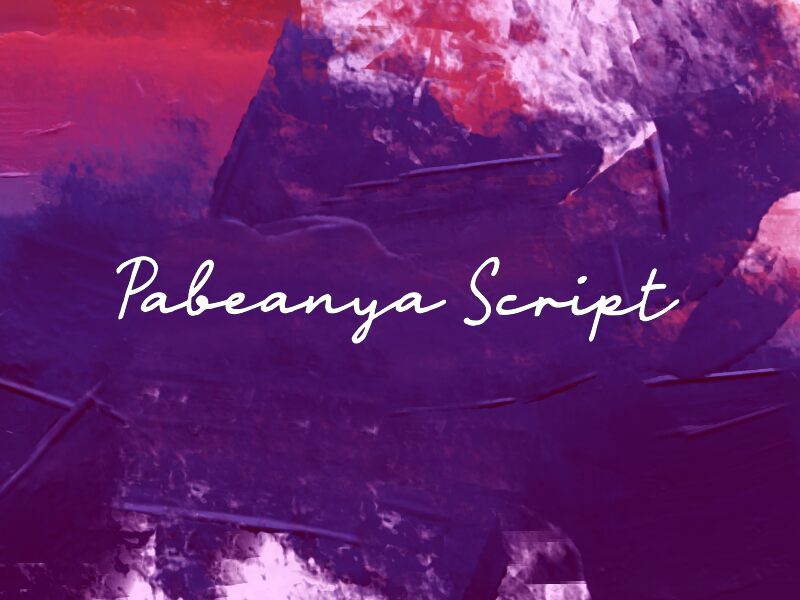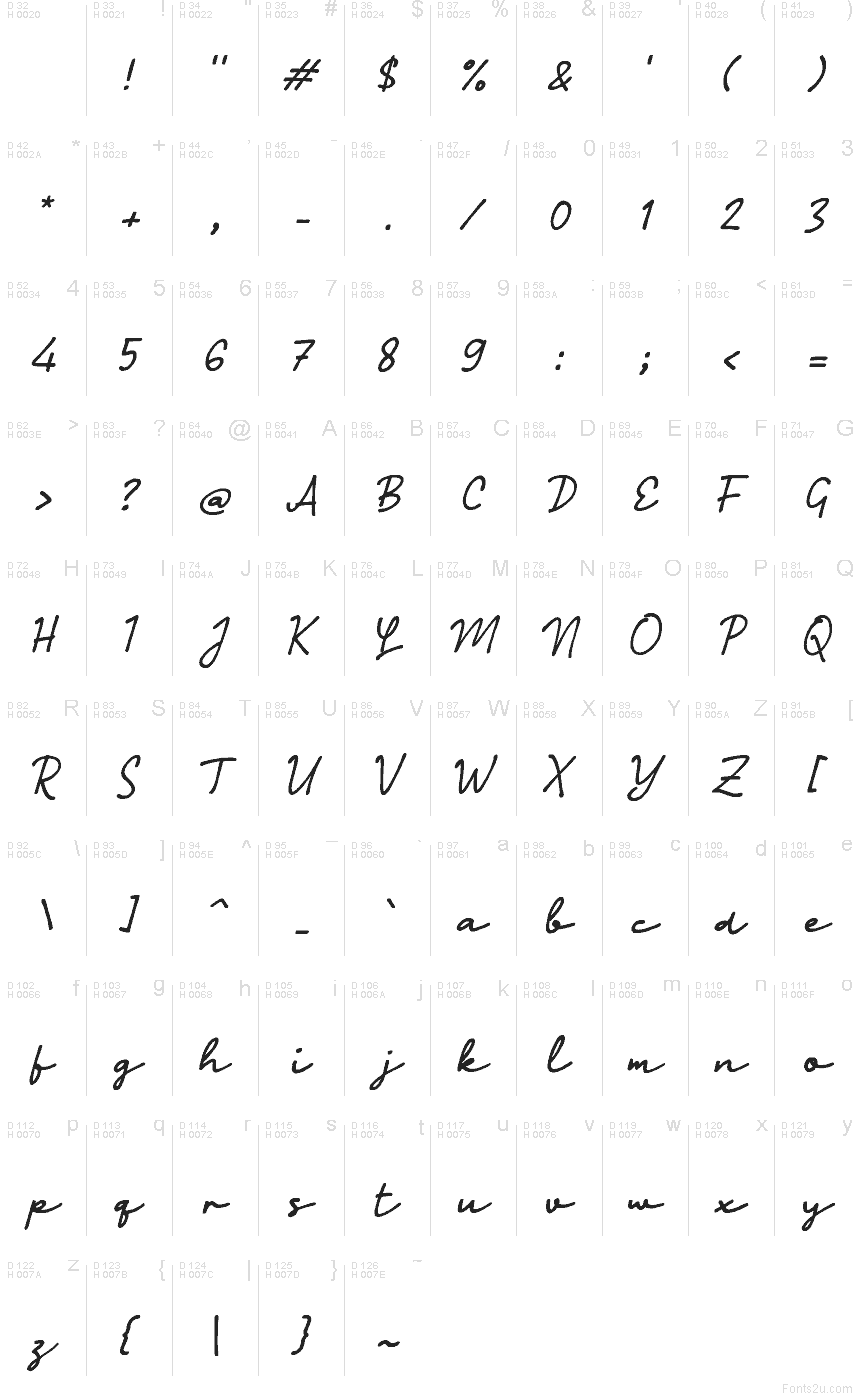
Pabeanya Script
Pabeanya Script font by wep is a free handwritten script font that captures the feel of a quick, confident note in smooth black ink. Its letters are lightly slanted and evenly spaced, so you get that relaxed, personal touch without sacrificing readability. The strokes are fluid but not fussy, giving your layouts a human voice that feels warm, modern, and unfake.
Using Pabeanya Script, you can bring an easygoing charm to logos, social media posts, signatures, product labels, quote graphics, and event invitations. This free font shines when you give it room to breathe at larger sizes, then pair it with a clean sans serif for body text to keep everything grounded and clear.